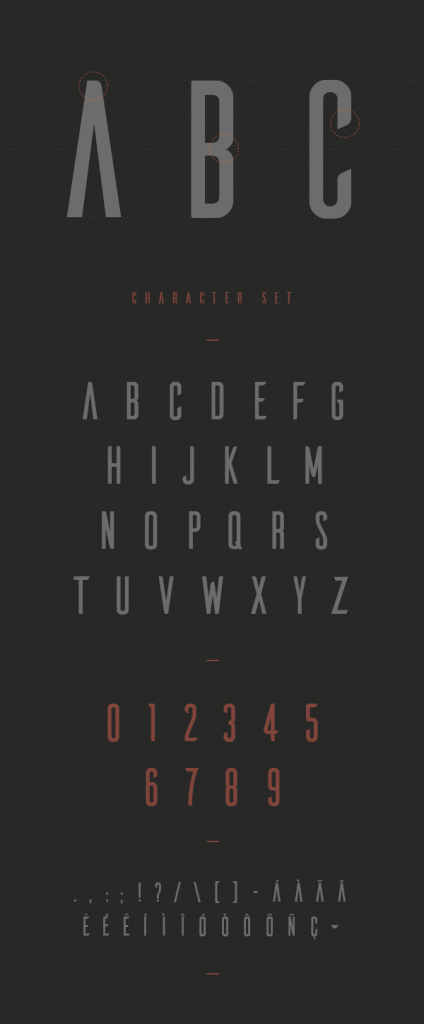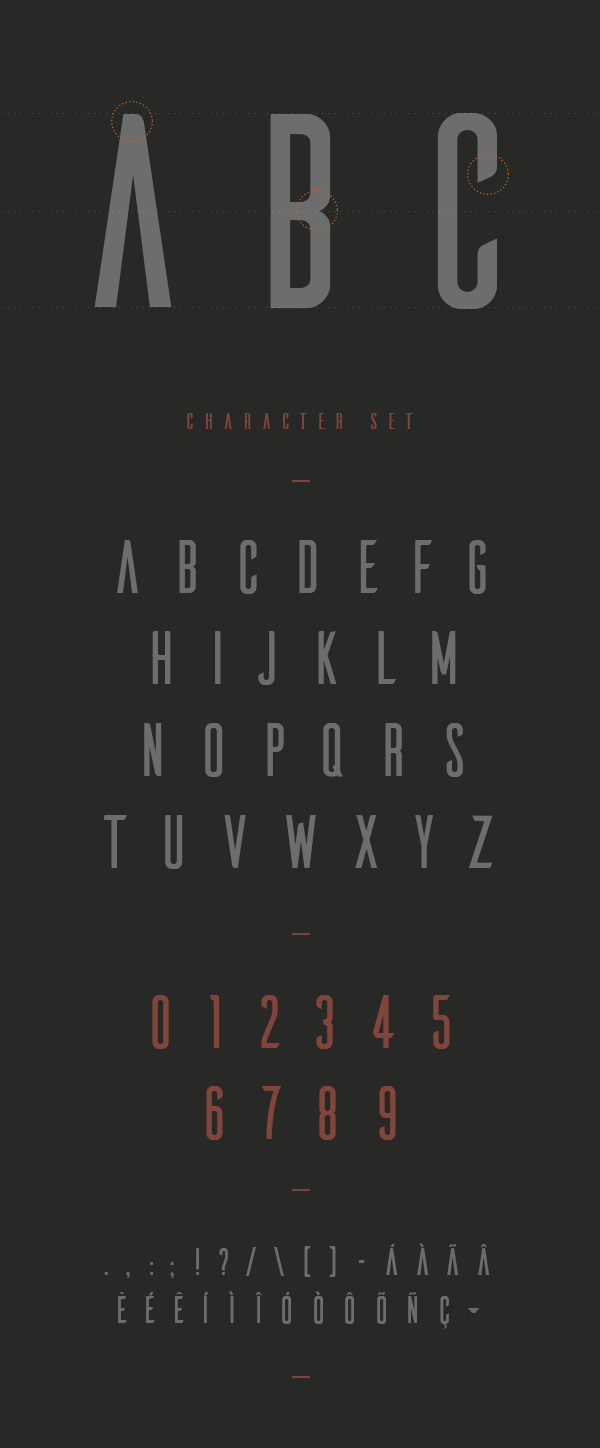
Ailerons
Ailerons Font
The font was inspired by aircraft models from the 40s. The typeface was designed for an experimental project of airmodels and now is available for personal use. Designed by agonz.